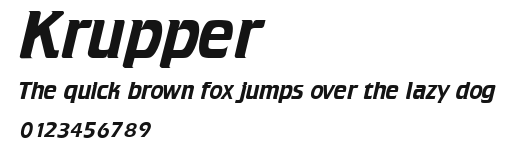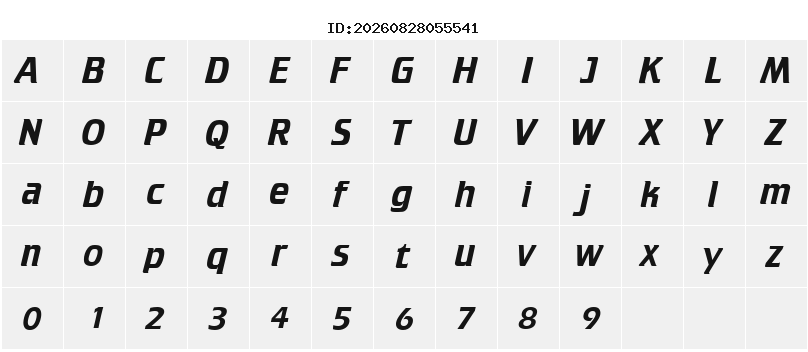
Krupper Preview
• Font Name: Krupper
• Full Font Name: Trek TNG Credits
About Krupper.ttf
Krupper.ttf is a modern, elegant sans-serif font designed for ultimate readability and visual harmony. Perfect for branding, headlines, web design, and print materials.